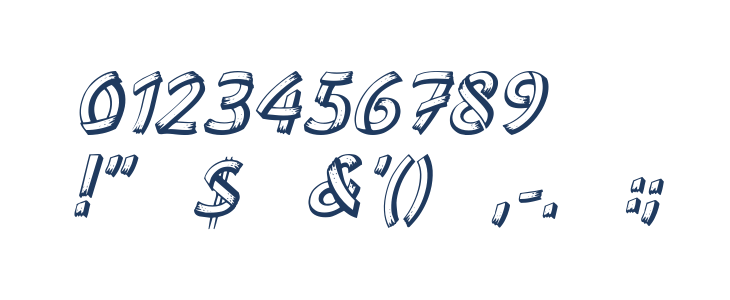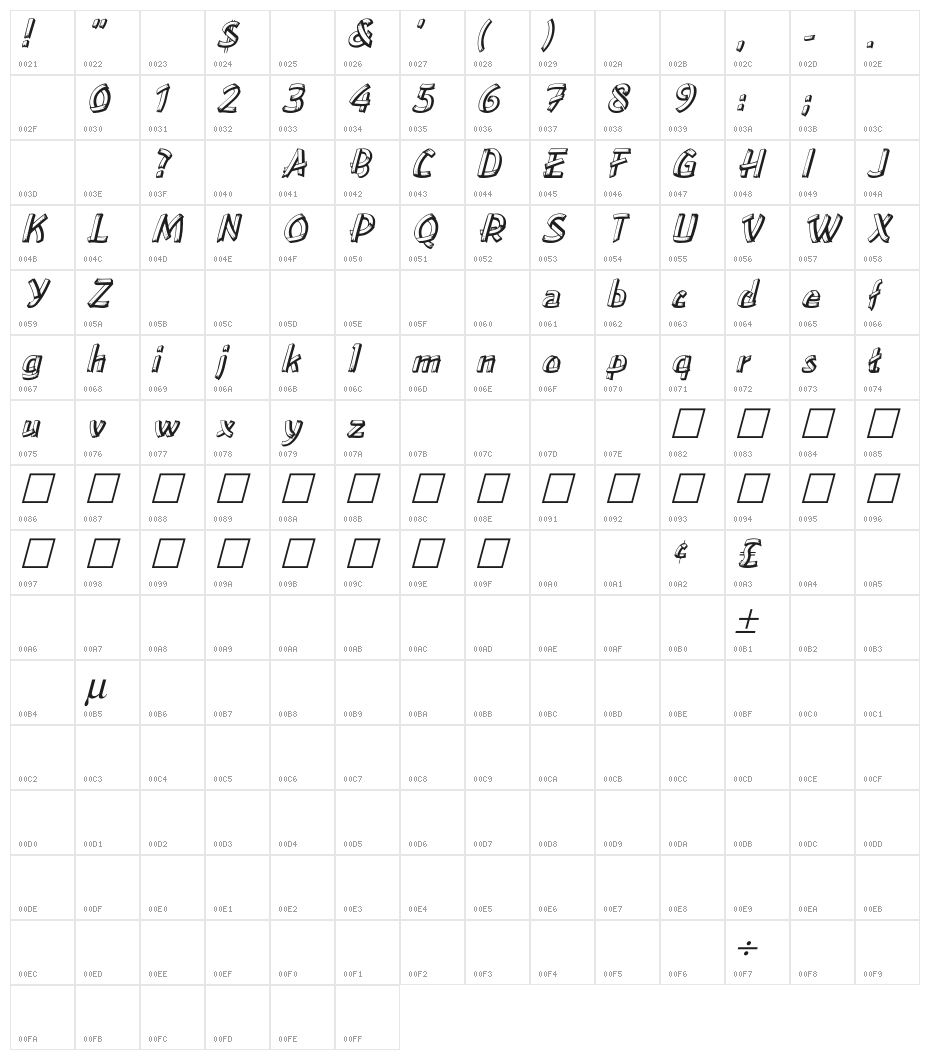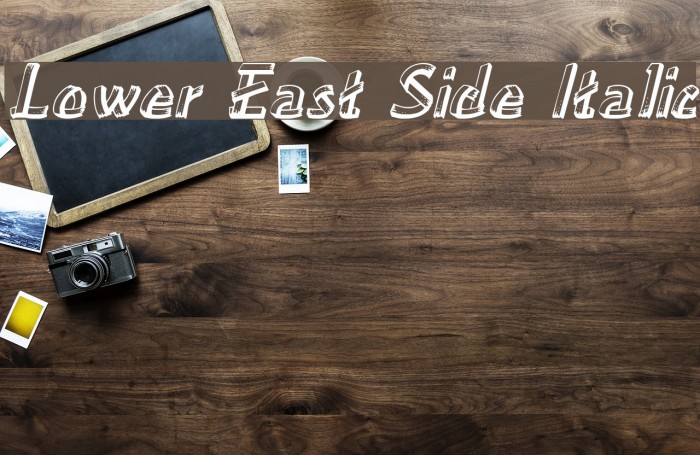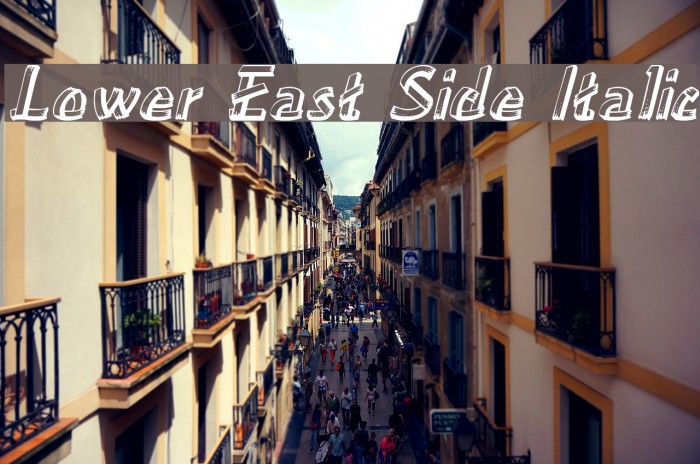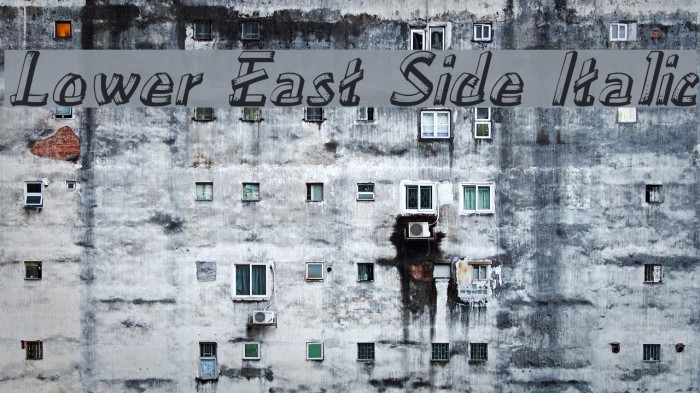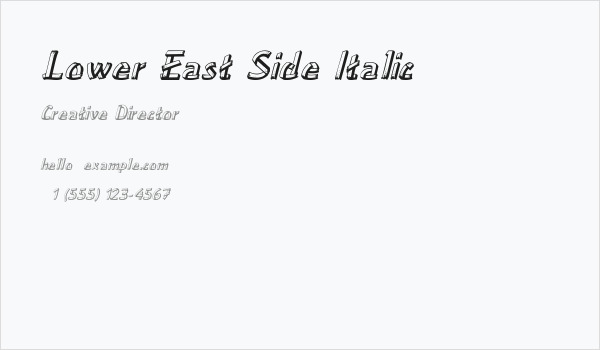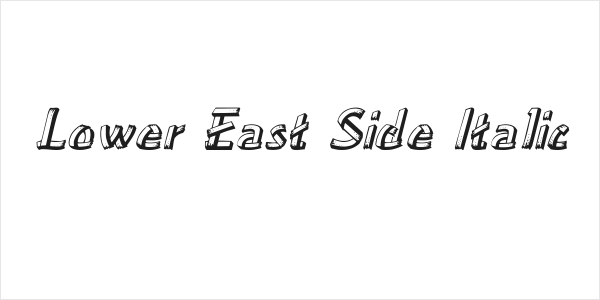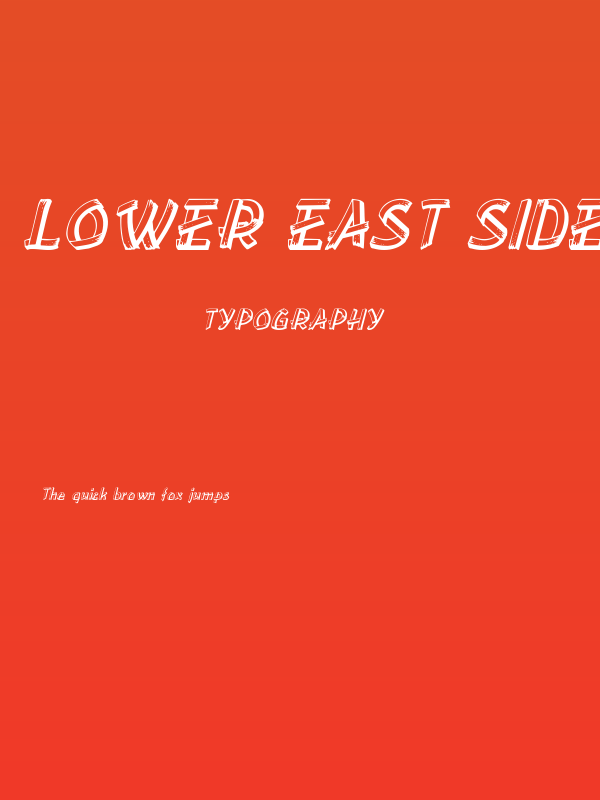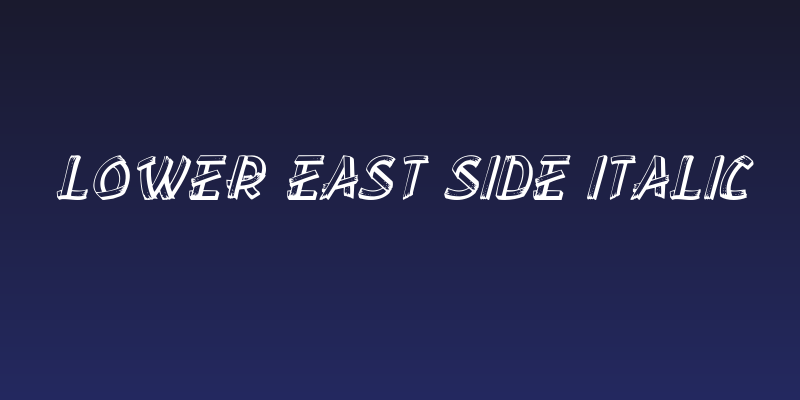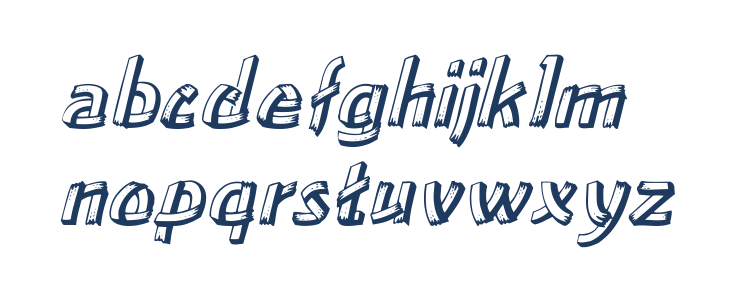
Lower East Side Italic Font
Lower East Side Italic Description
This font features a bold, italicized style with a distinct hand-drawn appearance. The characters are outlined with a rough, sketch-like texture, giving them a dynamic and energetic feel. The uppercase and lowercase letters maintain a consistent slant, enhancing the italic effect. The numerals and special characters follow the same stylistic approach, ensuring uniformity across the font. This design is both playful and expressive, making it suitable for creative projects that require a touch of personality.
| Proposed Projects | Ideal for comic books, graphic novels, posters, and creative branding projects. |